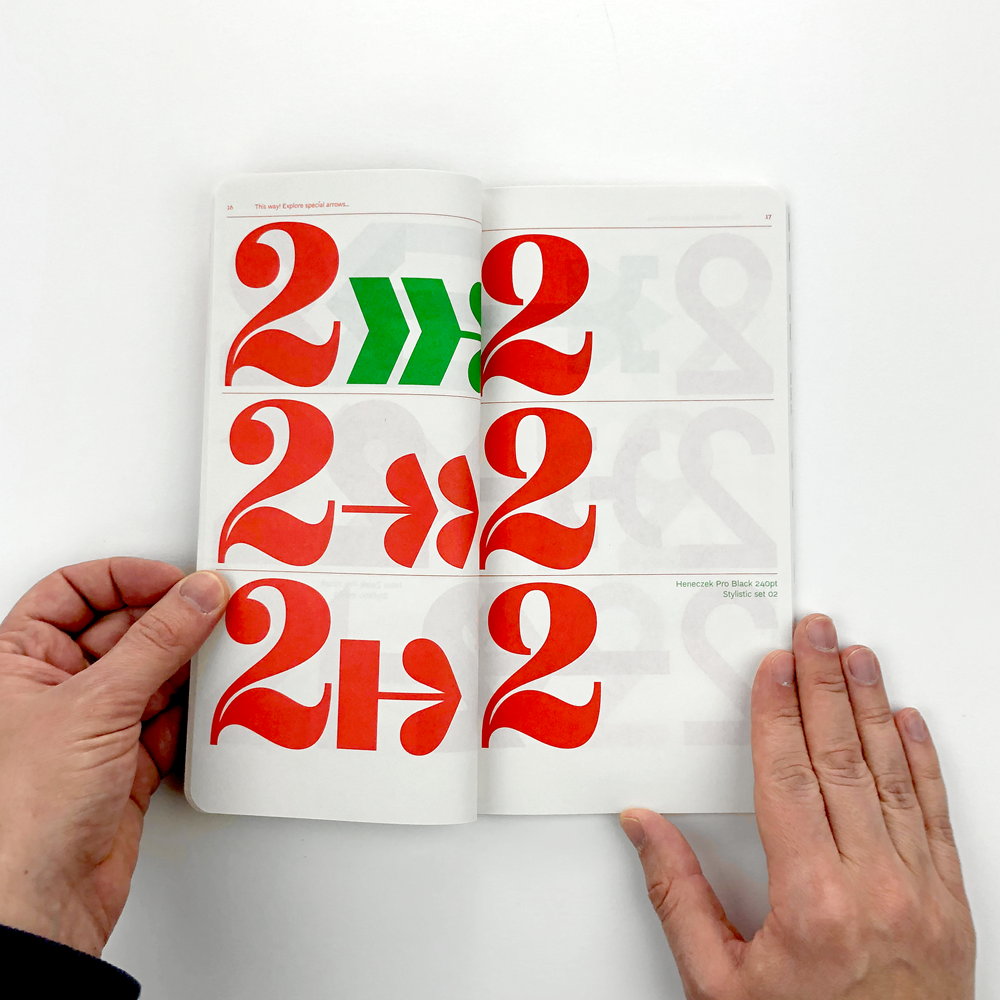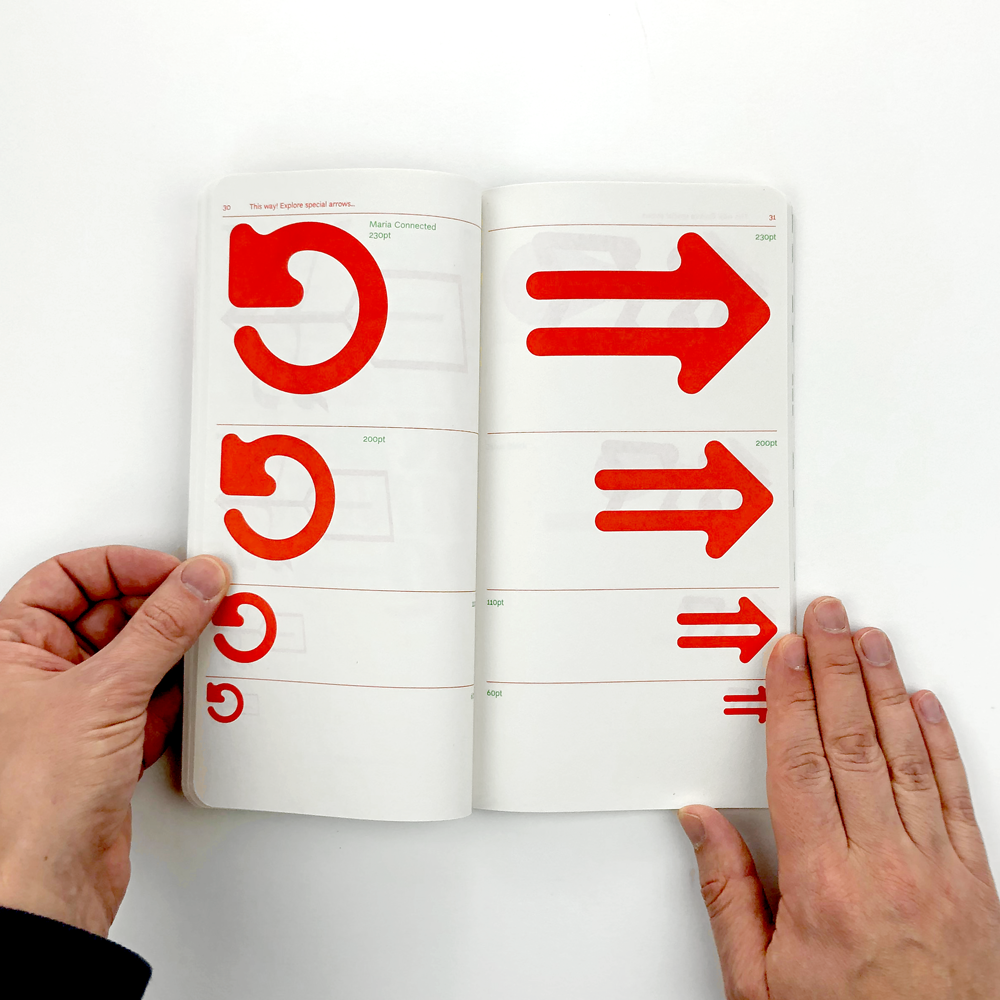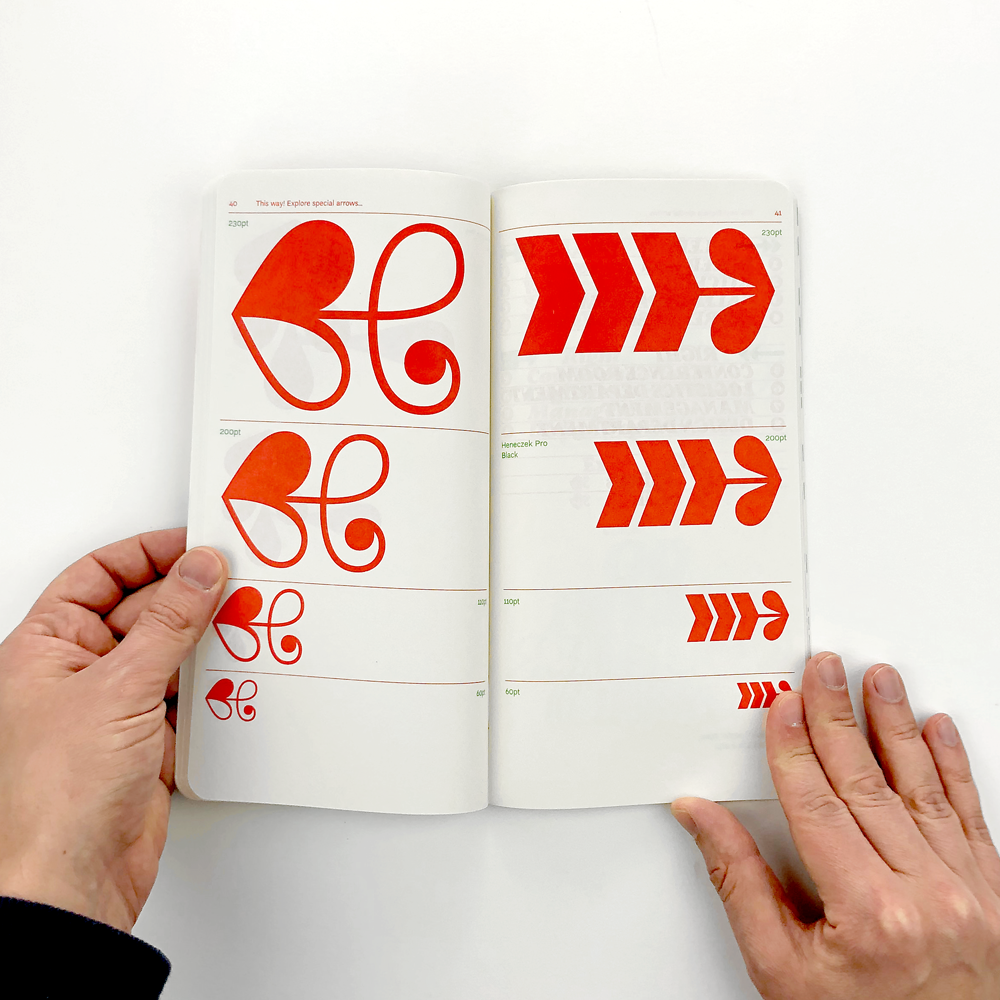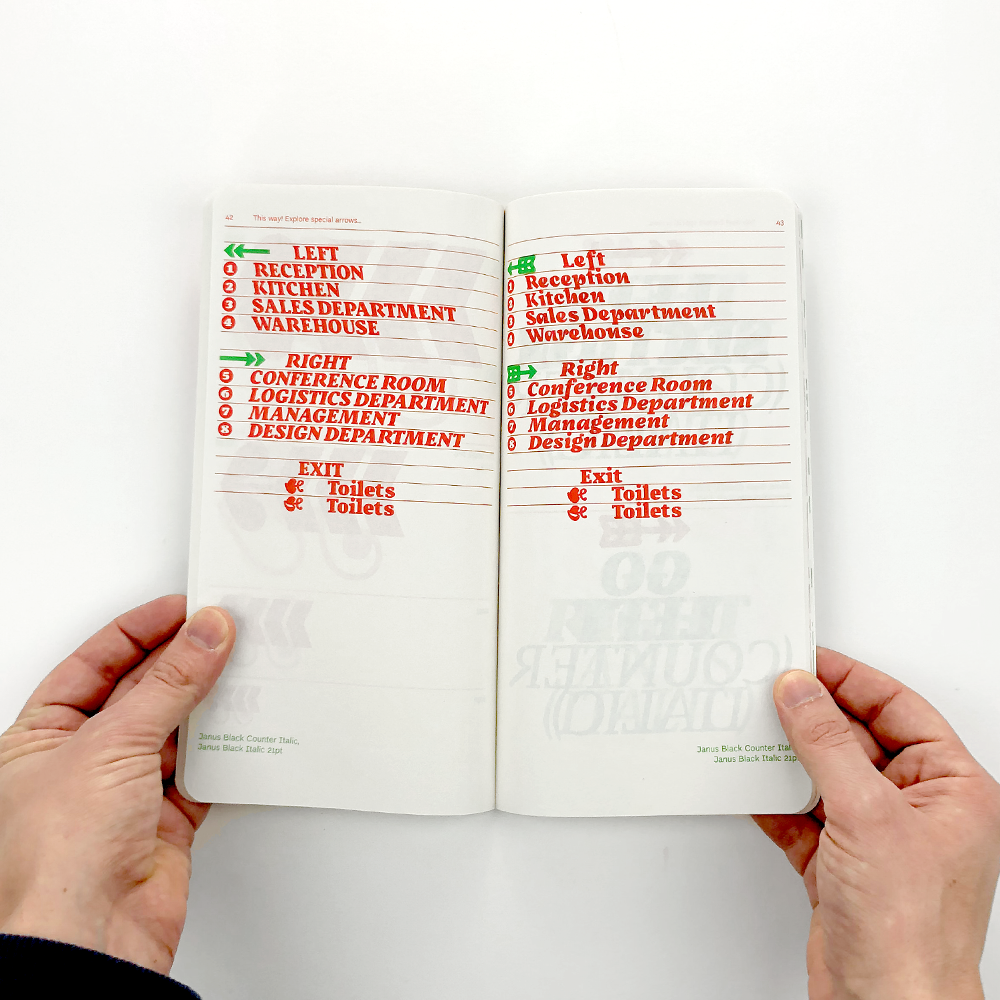
As a type foundry, Threedotstype are obsessed with arrows – all their fonts contain additional sets of navigation symbols. This inspired them to go beyond typography and put together broader presentations: a type specimen focused on arrows and an exhibition* guide where you can find fascinating stories behind navigation tools that we use every day.
From the specimen introduction:
Have you ever thought where the cursor came from, or why the oldest arrow ever created was showing the way to a brothel? The answers to those questions are part of those publications. The project aims to explain the historical background of arrows and exciting phenomena related to them. Understanding the context of those signs can help clarify the development of human perception. The spectrum of interpretation is broad: the arrow could have been a tool for killing (as in the case of Robin Hood), it could be an indicator of directions or even a symbol of love (Cupid’s attribute). “This way!” initiative will not set a course for your life, but it might explain some of the stories behind arrows which are an active, but often hidden part of our everyday life.
*The exhibition was part of the Weltformat Graphic Design Festival, Luzern, Switzerland, 2019.